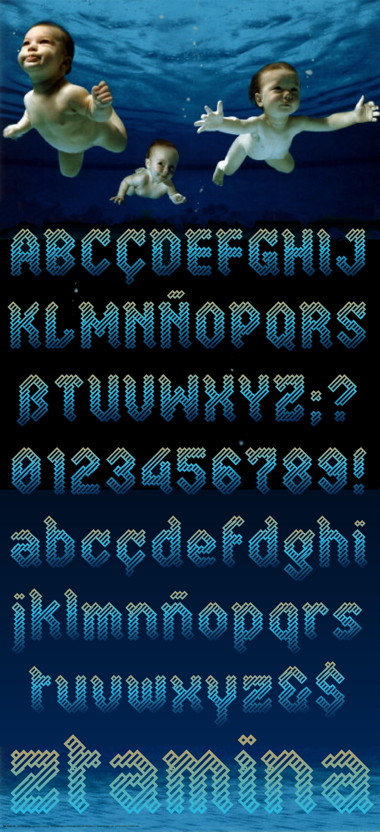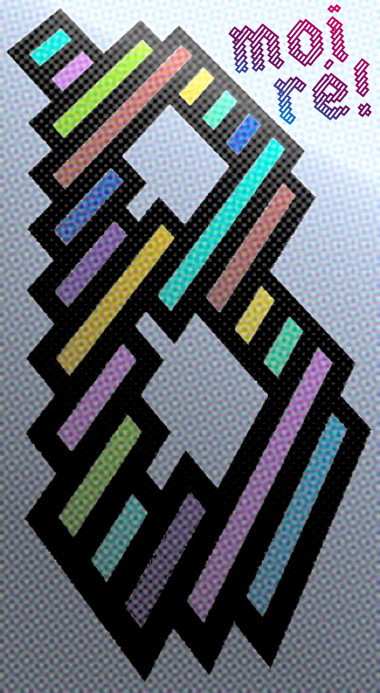
ztamina eYe/FS
Pattern Fill
Striped
Stamina: Physical or moral strength to resist or withstand illness, fatigue, or hardship; endurance.
Great work and beautiful aquatic demo pic. 10/10